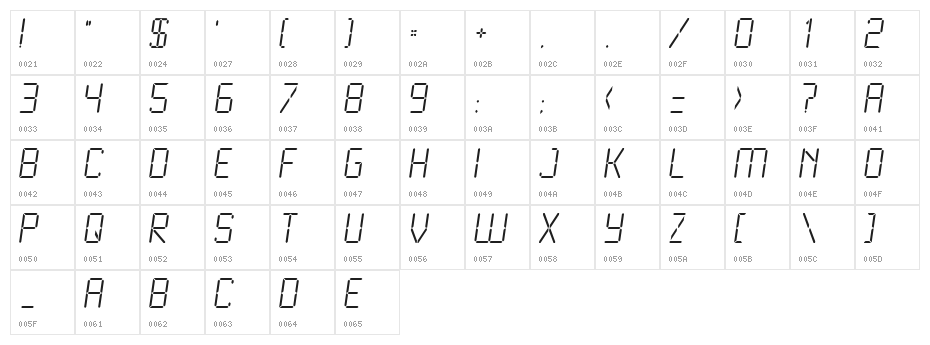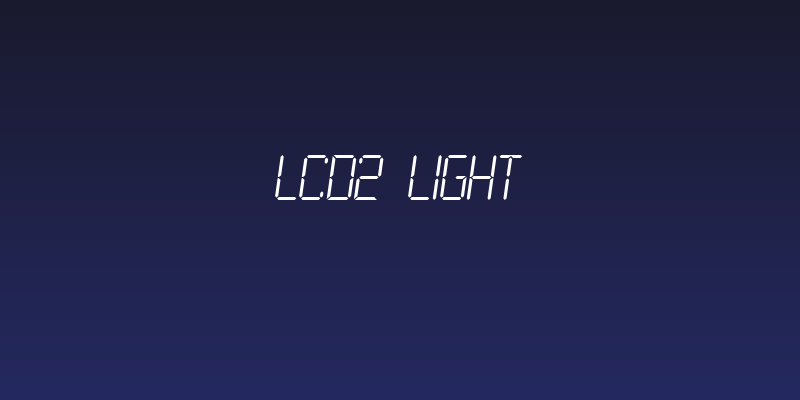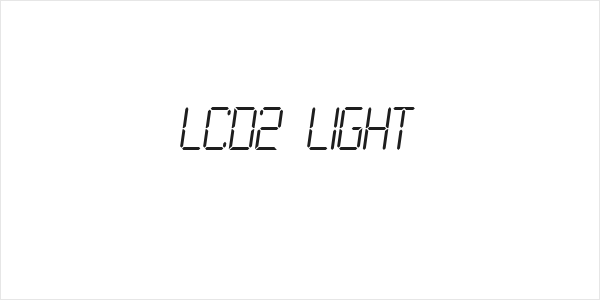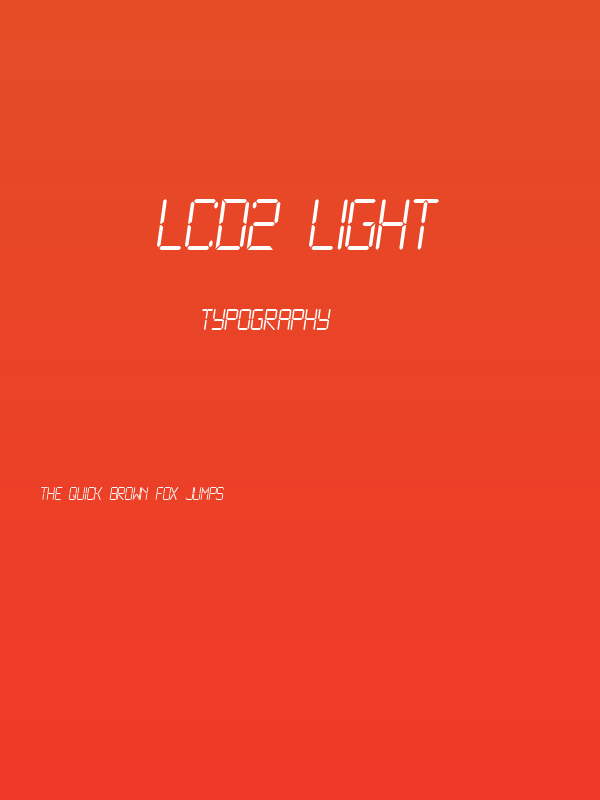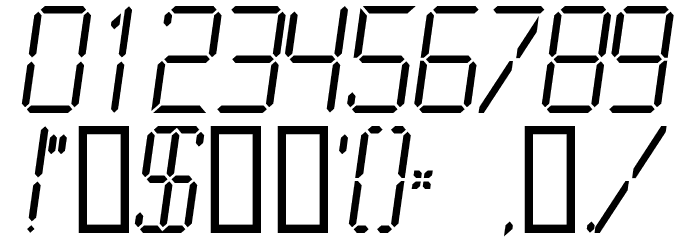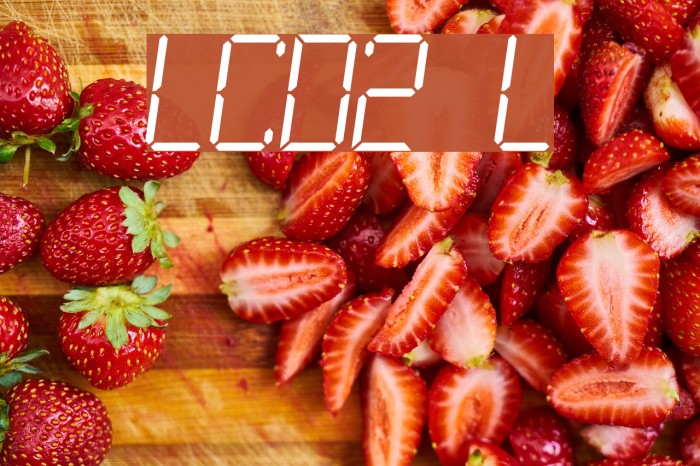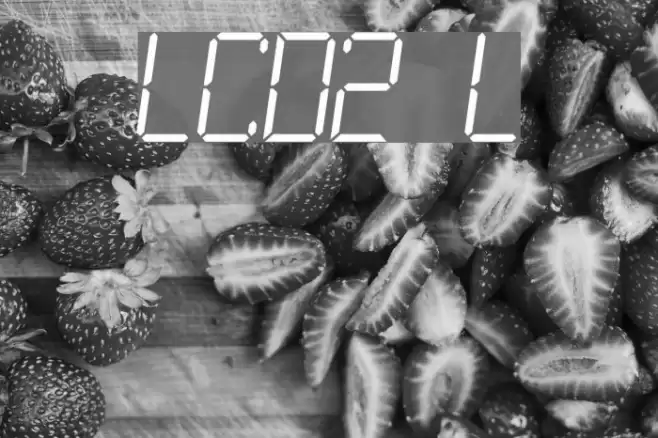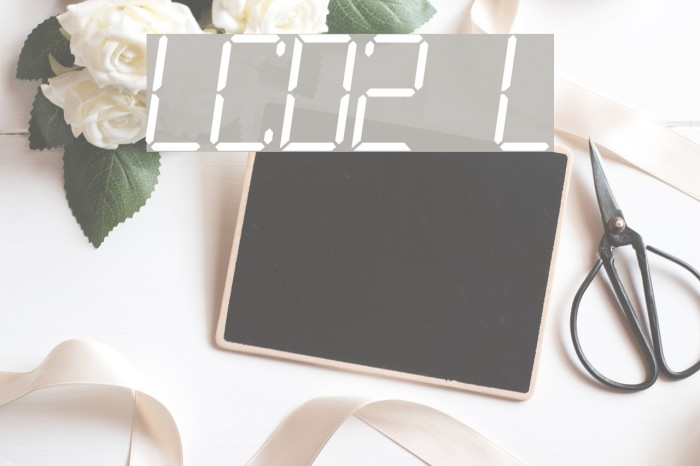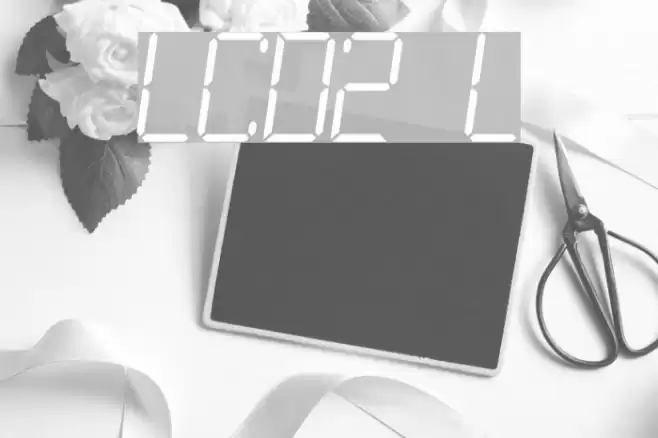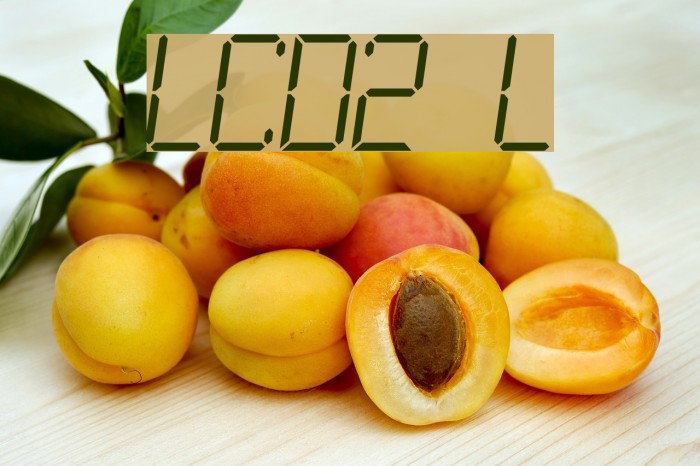
LCD2 Light Font
| 用途 | Headlines, Logos, Digital displays |
| おすすめプロジェクト | Ideal for digital interfaces, tech branding, electronic device displays, and retro-themed designs. |